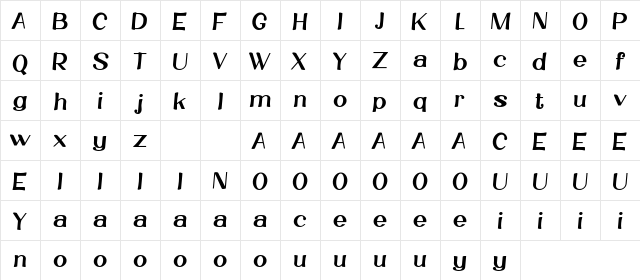
Karlin Regular
| Designer | AmruID |
Design Context for Karlin Typeface
Karlin takes a measured approach to typography — its balanced proportions and neutral character make it a reliable workhorse for both digital and print work.